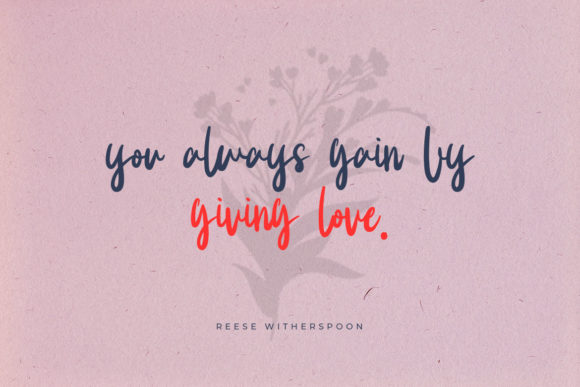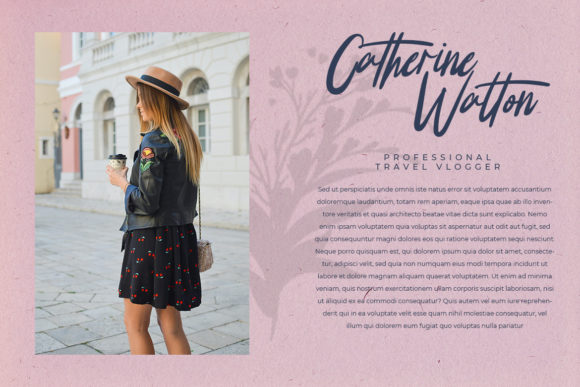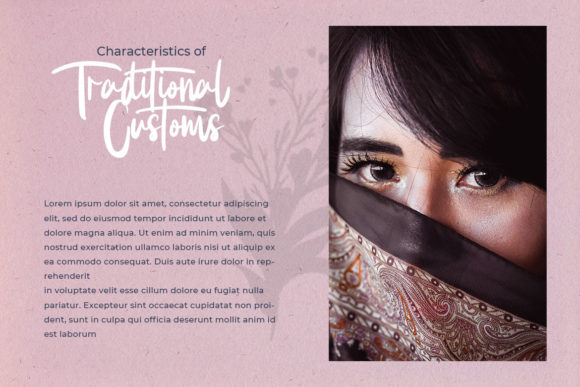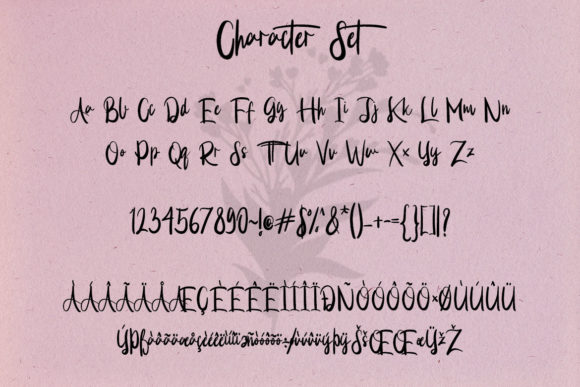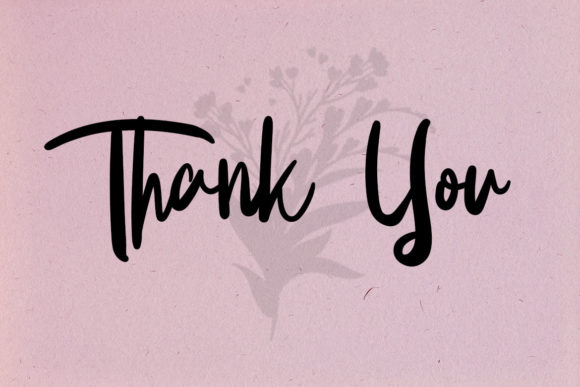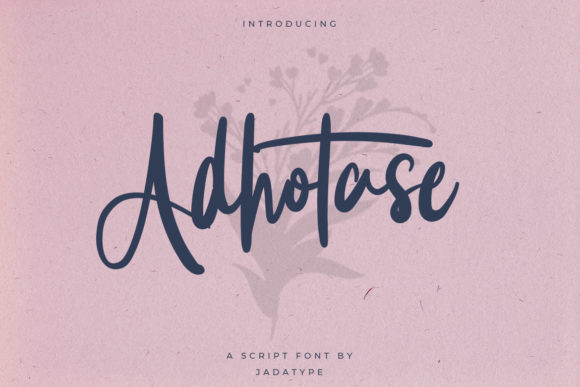
Discover the Charm of Adhotase Font: Elevate Your Designs with a Whimsical Script Font
In the world of typography, fonts play a crucial role in conveying the tone and personality of a design. For designers and crafters looking to add a touch of whimsy and relaxation to their creations, Adhotase Font is an excellent choice. This lovely script font features a relaxed theme that can instantly elevate any project, making it a valuable asset to your font library.
The Unique Characteristics of Adhotase Font
Adhotase Font boasts a unique and charming style that sets it apart from other script fonts. Its whimsical nature makes it perfect for designs that require a personal touch, such as invitations, greeting cards, and social media graphics. The font’s relaxed theme gives it a friendly and approachable feel, making it ideal for brands and designers looking to convey a sense of warmth and approachability.
One of the standout features of Adhotase Font is its versatility. Regardless of the topic or theme, this font can adapt seamlessly, adding a touch of elegance and sophistication to any design. Whether you’re working on a project for a fashion brand, a food blog, or a non-profit organization, Adhotase Font can help you create a visually appealing and engaging design that captures the audience’s attention.
Why Adhotase Font Should Be in Your Font Library
With so many fonts available, it’s essential to have a collection that can cater to various design needs. Adhotase Font is an incredible asset to your font library for several reasons:
- Unique Style: Adhotase Font offers a distinctive style that can help your designs stand out from the crowd.
- Versatility: Its adaptability makes it suitable for a wide range of projects and themes.
- Emotional Connection: The font’s whimsical and relaxed nature can help create an emotional connection with your audience.
- Ease of Use: Adhotase Font is easy to read and works well in various design contexts.
Using Adhotase Font in Your Designs
Incorporating Adhotase Font into your designs is straightforward. Here are a few tips to get you started:
- Pair it with Other Fonts: Combine Adhotase Font with complementary fonts to create visual interest and hierarchy.
- Experiment with Colors: Play with different colors to find the perfect match for your design and brand.
- Use it for Headings and Titles: Adhotase Font works well for headings and titles, adding a touch of personality to your design.
| Font Name | Adhotase Font |
| Author | jadatype |
Adhotase Font is a charming and versatile script font that can elevate any design with its whimsical and relaxed theme. Its unique style, adaptability, and emotional connection make it an excellent addition to your font library. Whether you’re a designer or crafter, Adhotase Font is sure to become a go-to choice for projects that require a personal touch. So, add Adhotase Font to your collection today and discover the charm it can bring to your designs!